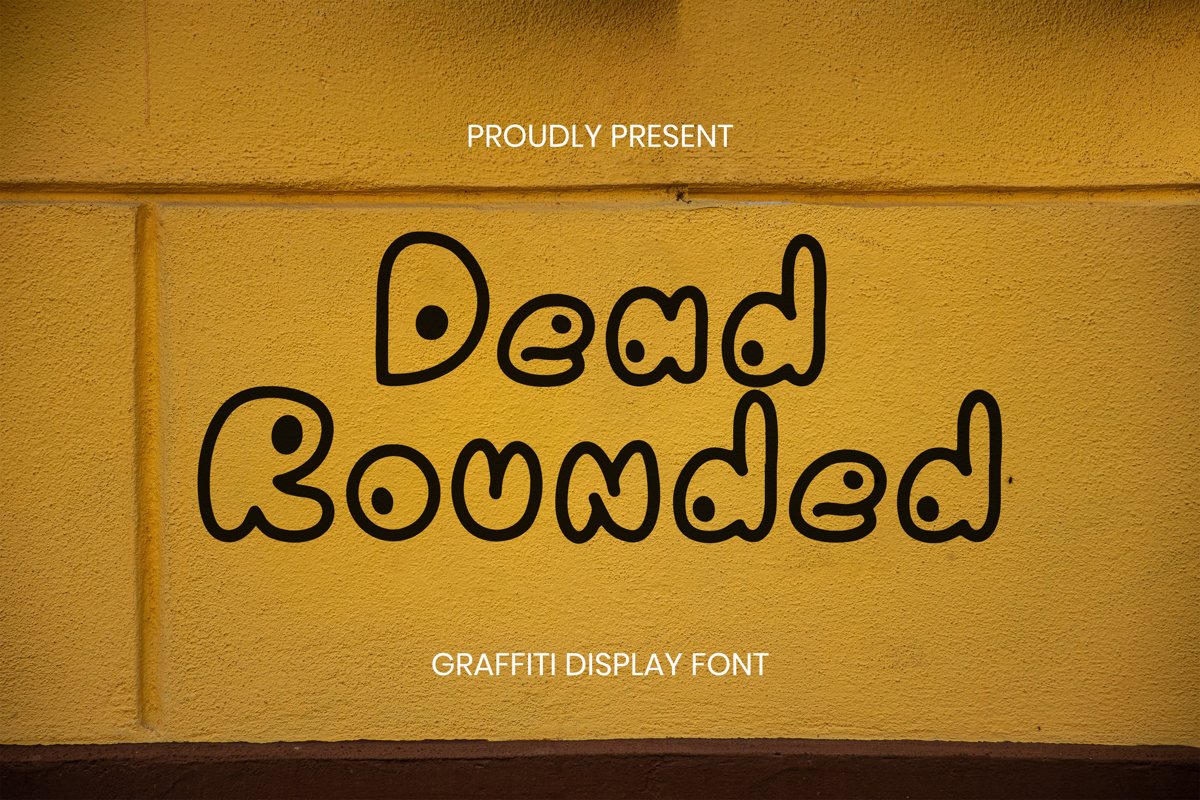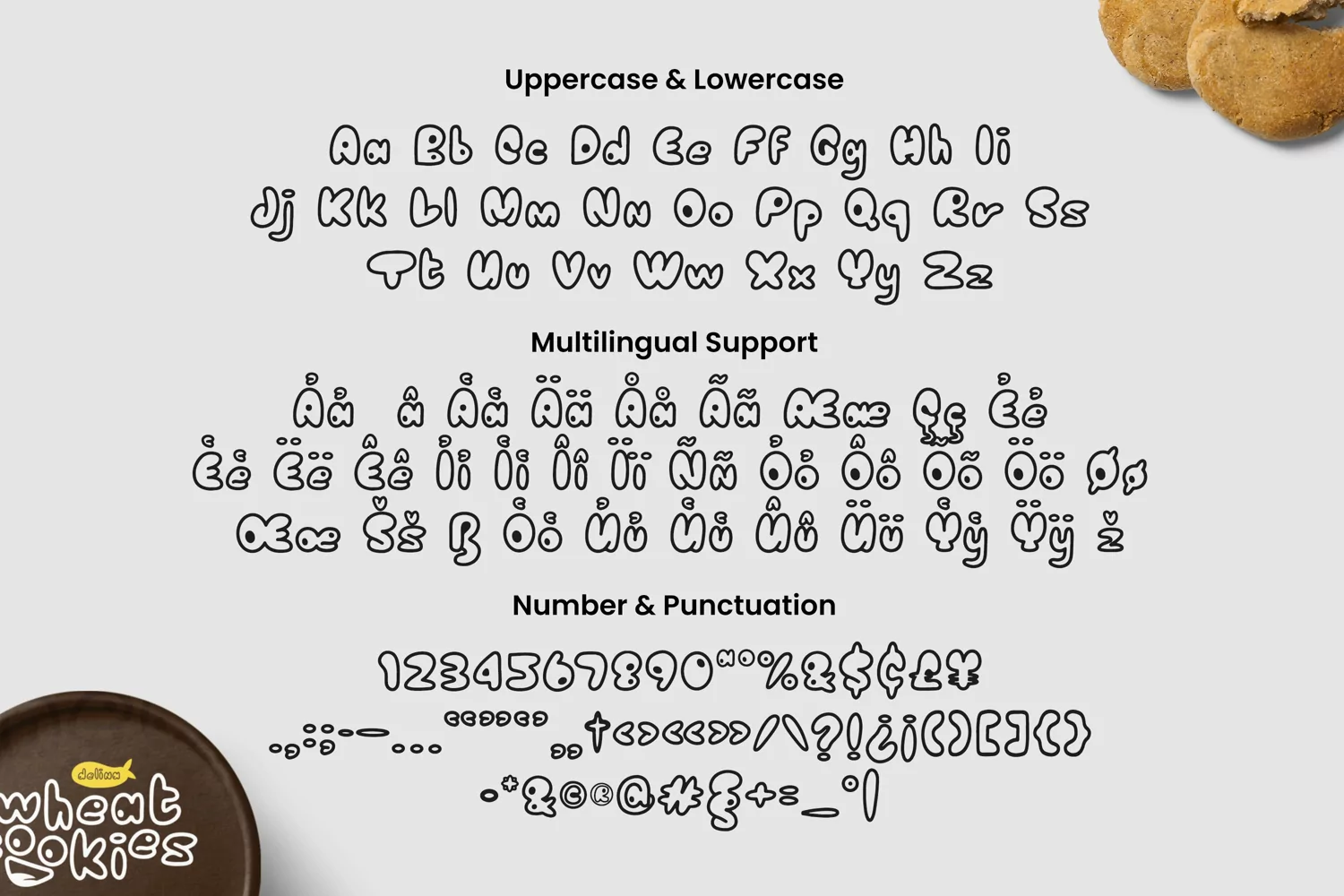
Suitable for some designs such as the logotype, brand, packaging, quotes, music poster, t-shirt, cover book and more custom design. The features uppercase, lowercase, numeral, punctuation & symbol, multilingual support.
Dead Rounded